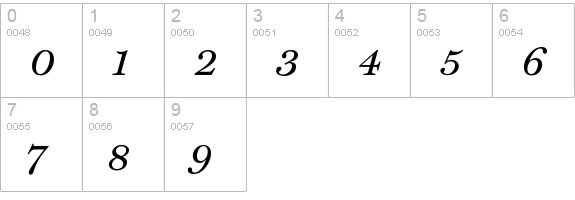
Home Italic is a distinctive, italic variant in the Home typeface family \xE2\x80\x94 well suited to design and typography projects.
Home Italic font is a stylish and elegant typeface that exudes a sense of sophistication and modernity. Its sleek and slanted design adds a touch of flair to any project, making it perfect for both digital and print applications. The italicized characters of Home Italic font create a sense of movement and dynamism, drawing the eye and adding visual interest. One of the best things about Home Italic font is that it is completely free to download at FontsMarket.com. This means that you can easily access this beautiful typeface and use it in your designs without any cost. Whether you're working on a website, a logo, a brochure, or any other creative project, Home Italic font is sure to elevate your work and make a lasting impression. With its clean lines, modern aesthetic, and versatile appeal, Home Italic font is a must-have for any designer looking to add a touch of sophistication to their projects. Download it for free today and see how this stunning typeface can enhance your designs.